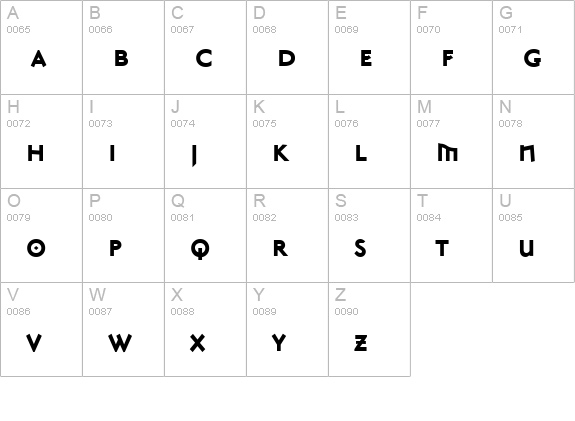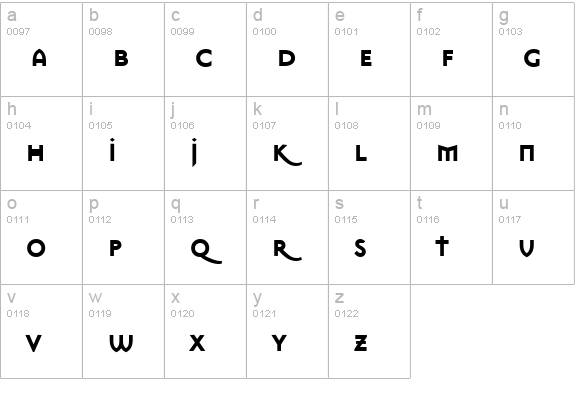
MasonSansSuperBold Bold Font Details
MasonSansSuperBold Bold is a strong, high-contrast variant in the MasonSansSuperBold typeface family \xE2\x80\x94 well suited to headlines, attention-grabbing titles, and strong calls-to-action.
Introducing MasonSansSuperBold Bold, a typeface that exudes confidence and power with its strong and commanding presence. This font is perfect for making a bold statement, whether it's in a headline, poster, or logo design. MasonSansSuperBold Bold stands out from the crowd with its thick and sturdy letterforms that demand attention. Its clean and modern aesthetic is enhanced by its precise curves and sharp angles, creating a harmonious balance between strength and elegance. What makes MasonSansSuperBold Bold even more appealing is that it is freely available to download at FontsMarket.com. Yes, you heard that right - this exceptional font can be yours without any cost. It's a rare opportunity to get your hands on a high-quality typeface that adds a touch of sophistication to any project, completely free of charge. Whether you're a professional designer looking to enhance your portfolio or an enthusiastic beginner exploring the world of typography, MasonSansSuperBold Bold is a must-have addition to your font collection. Its versatility allows it to be used in various design contexts, from branding and advertising to editorial and web design. Don't miss out on this amazing opportunity to elevate your designs with MasonSansSuperBold Bold. Download it for free today at FontsMarket.com and let your creativity flow with this powerful and impactful typeface.